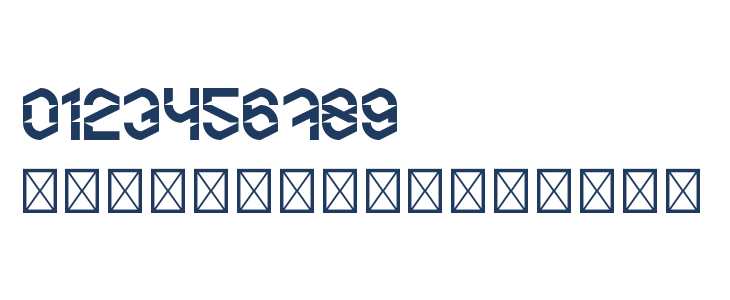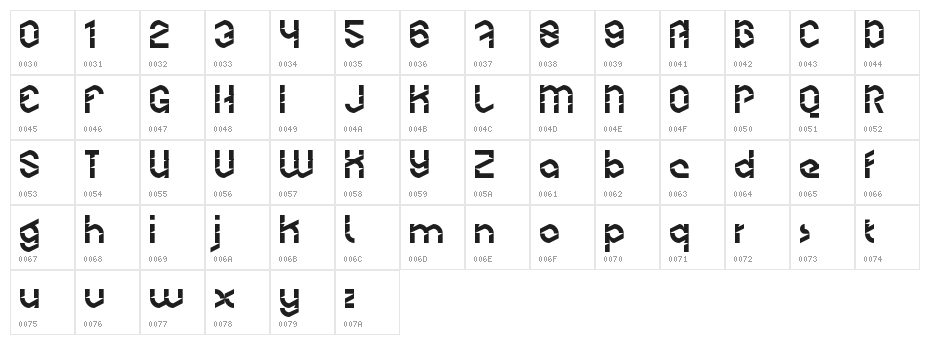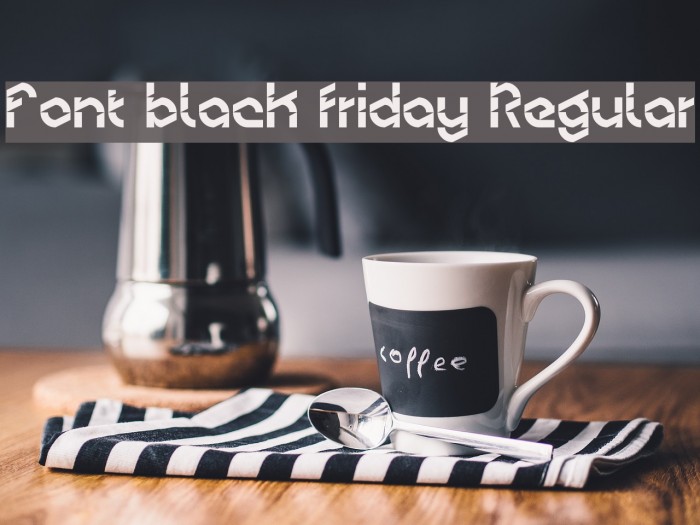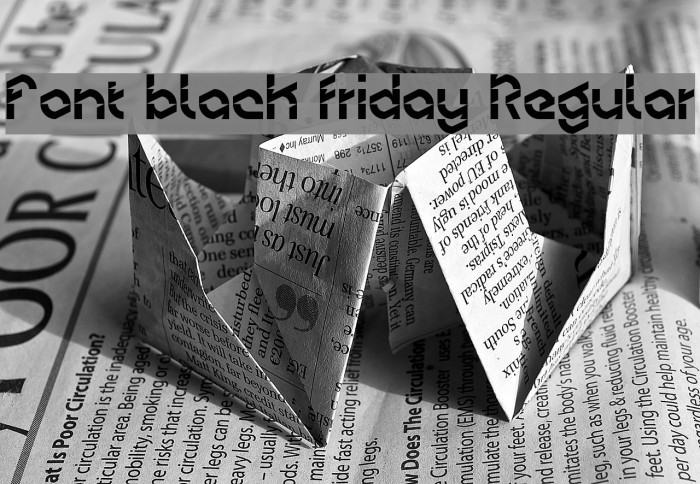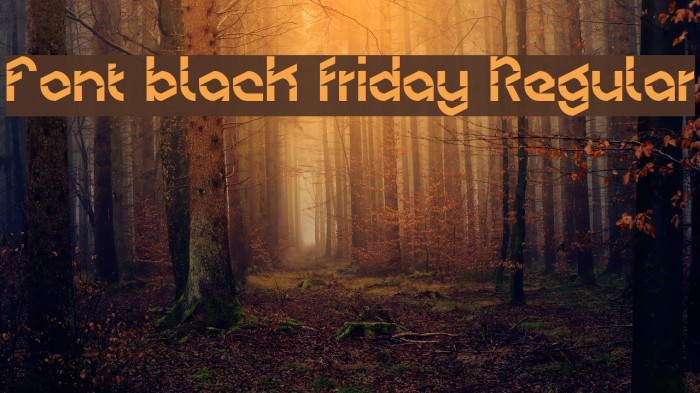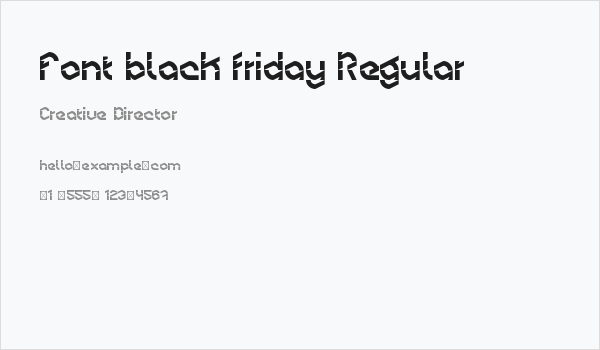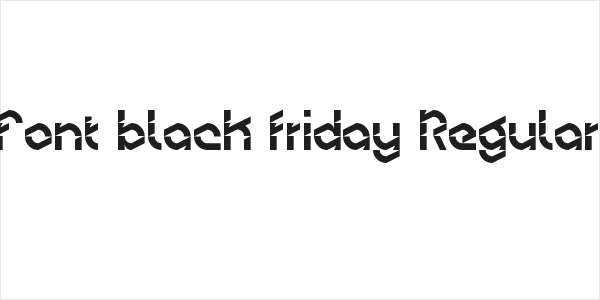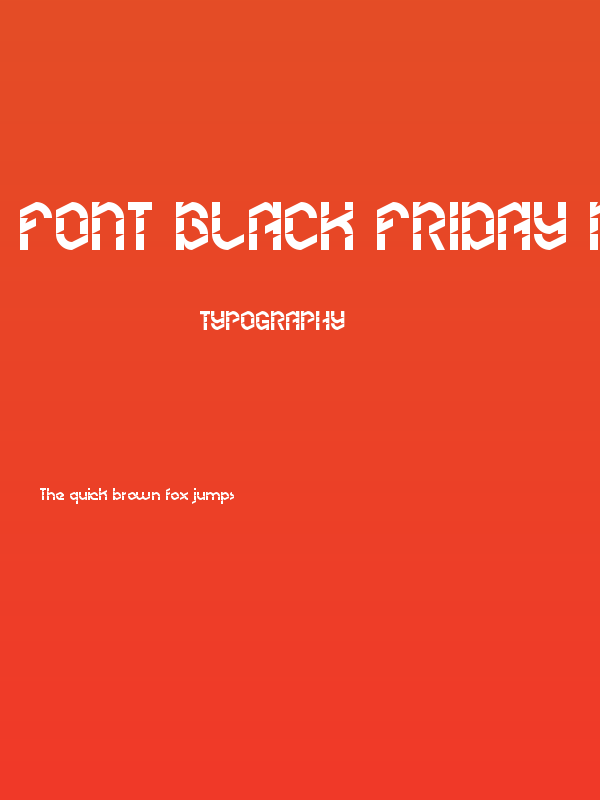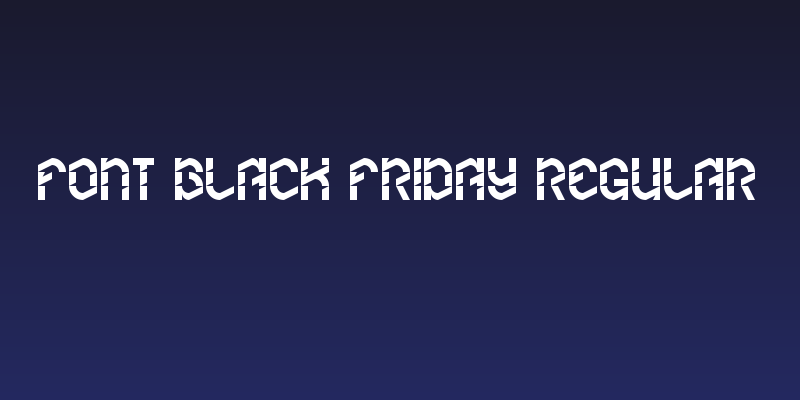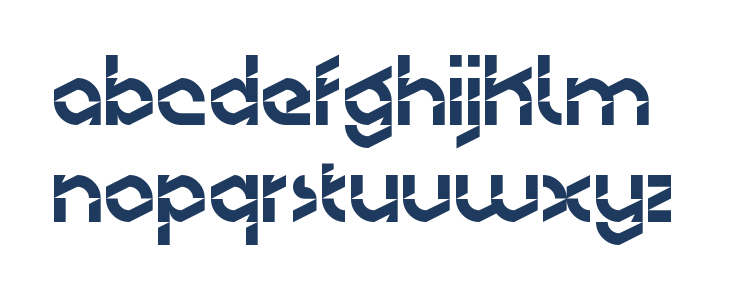
Font black friday Regular Font
Font black friday Regular Description
This font features a bold, geometric design with a modern and edgy aesthetic. The characters are constructed with thick, angular strokes that create a sense of movement and energy. The uppercase and lowercase letters share a consistent style, with sharp angles and a blocky appearance. Numbers and special characters maintain this cohesive look, making the font versatile for various applications. The unique style is eye-catching and suitable for projects that require a strong visual impact.